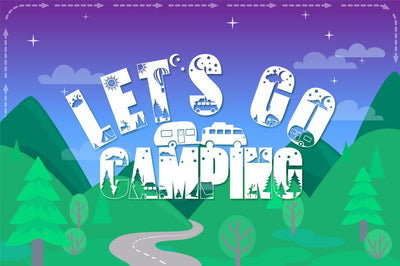
Let's Go Camping! - A Camping & Hiking Font with Extras
Let's Go Camping is a craft font I started working on a while ago, and completely forgot about it until a few days ago when I realized the camping season is almost here.
Let's Go Camping Regular is a thick sans-serif font with simple cutout shapes, making it very easy to cut and weed.
The Let's Go Camping Extras font comes with 7 ready-to-go catchwords and a ton of camping-related silhouettes! You can use them in your craft projects, as papercuts, coloring books, branding, or pretty much anything that you can think of!
It is a handcrafted font created from scratch, using as little points as possible to ensure you get the best results with minimum difficulty.